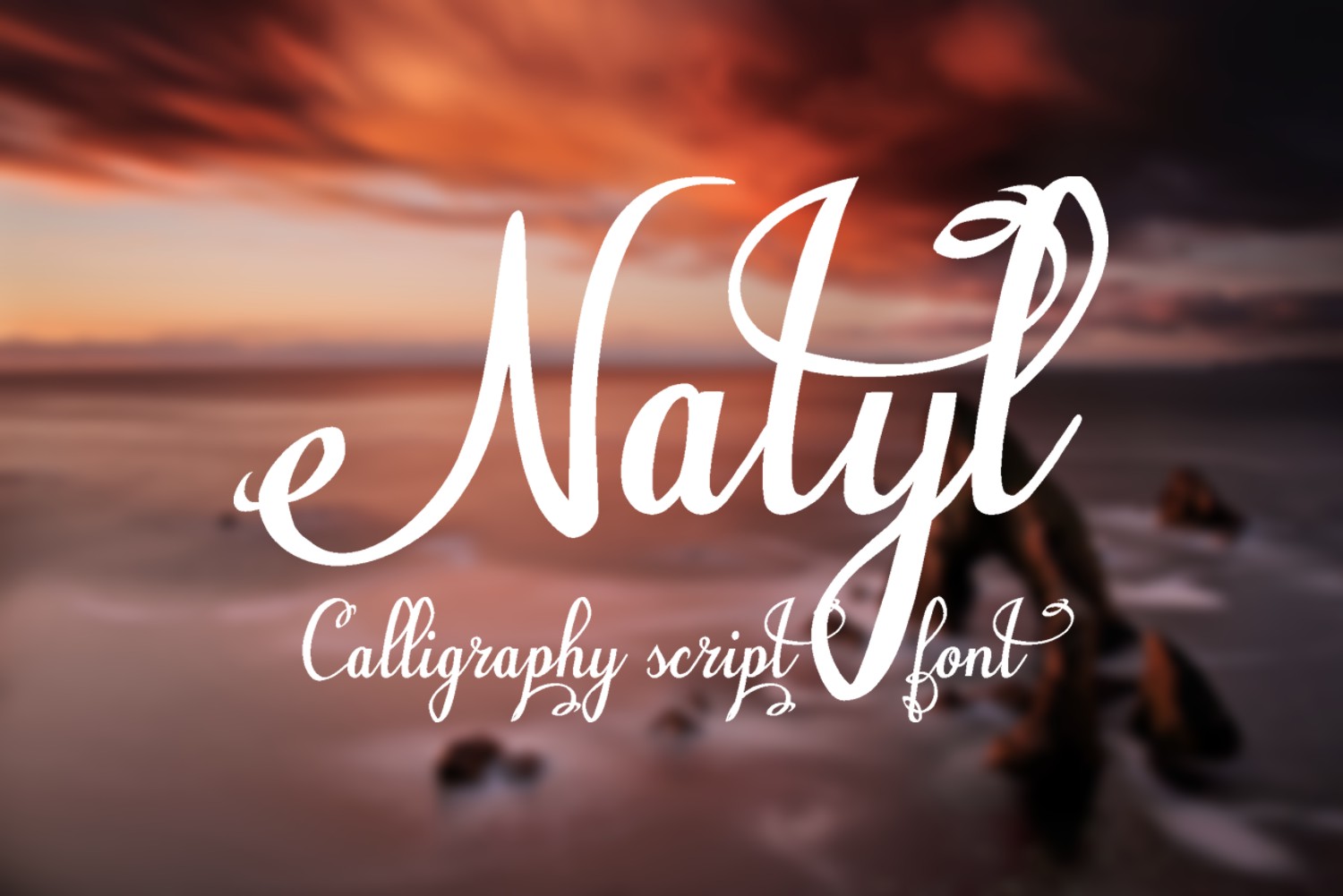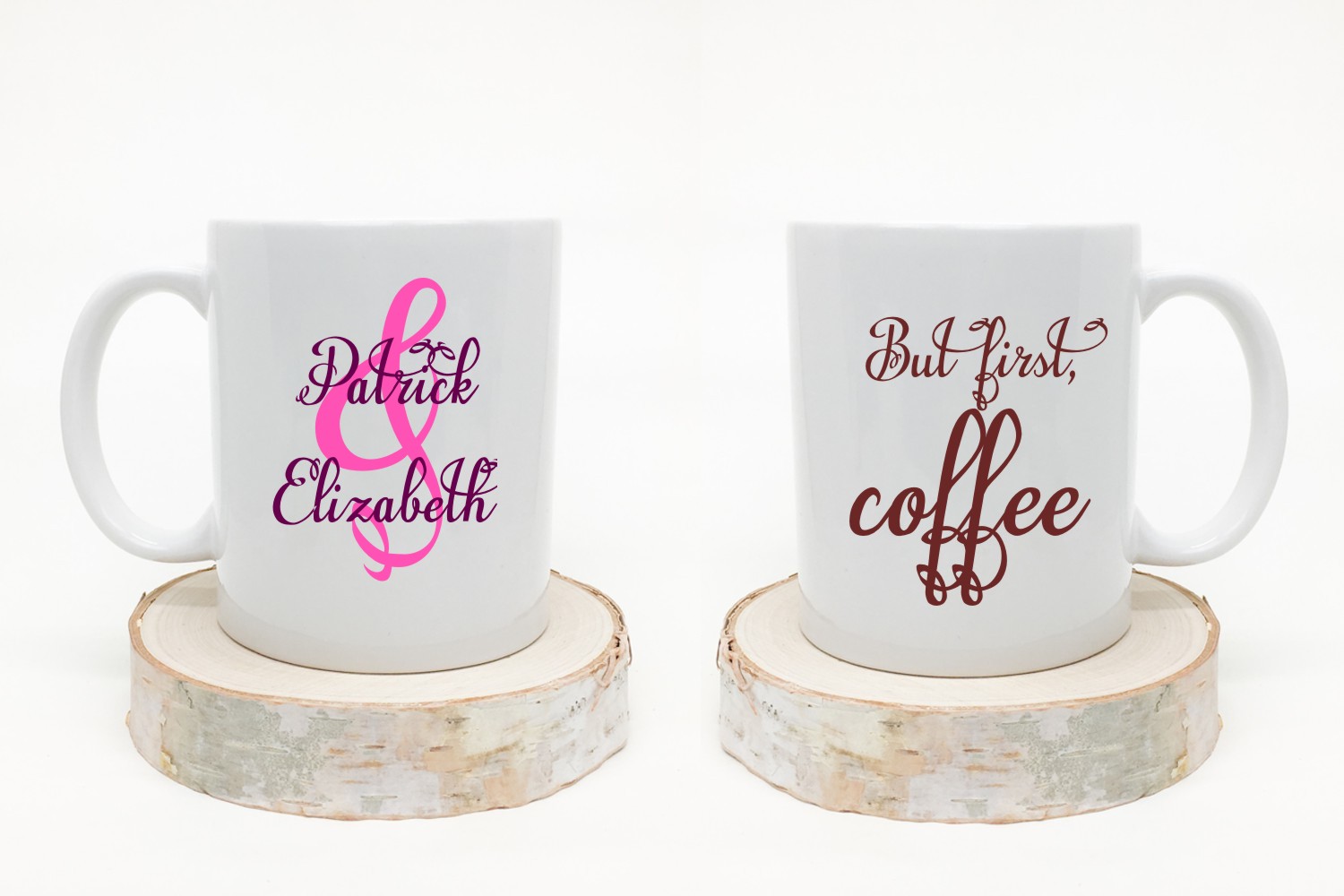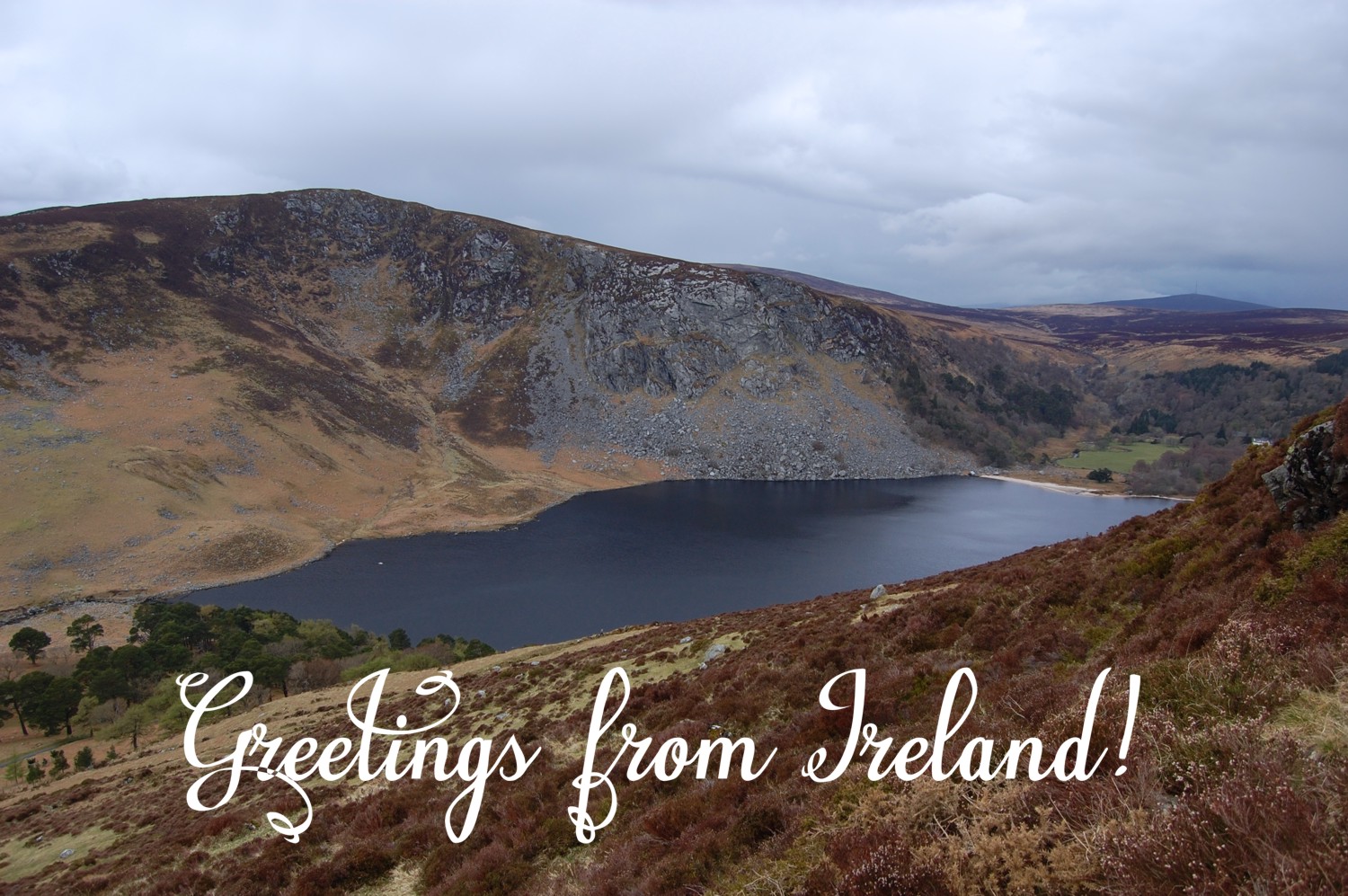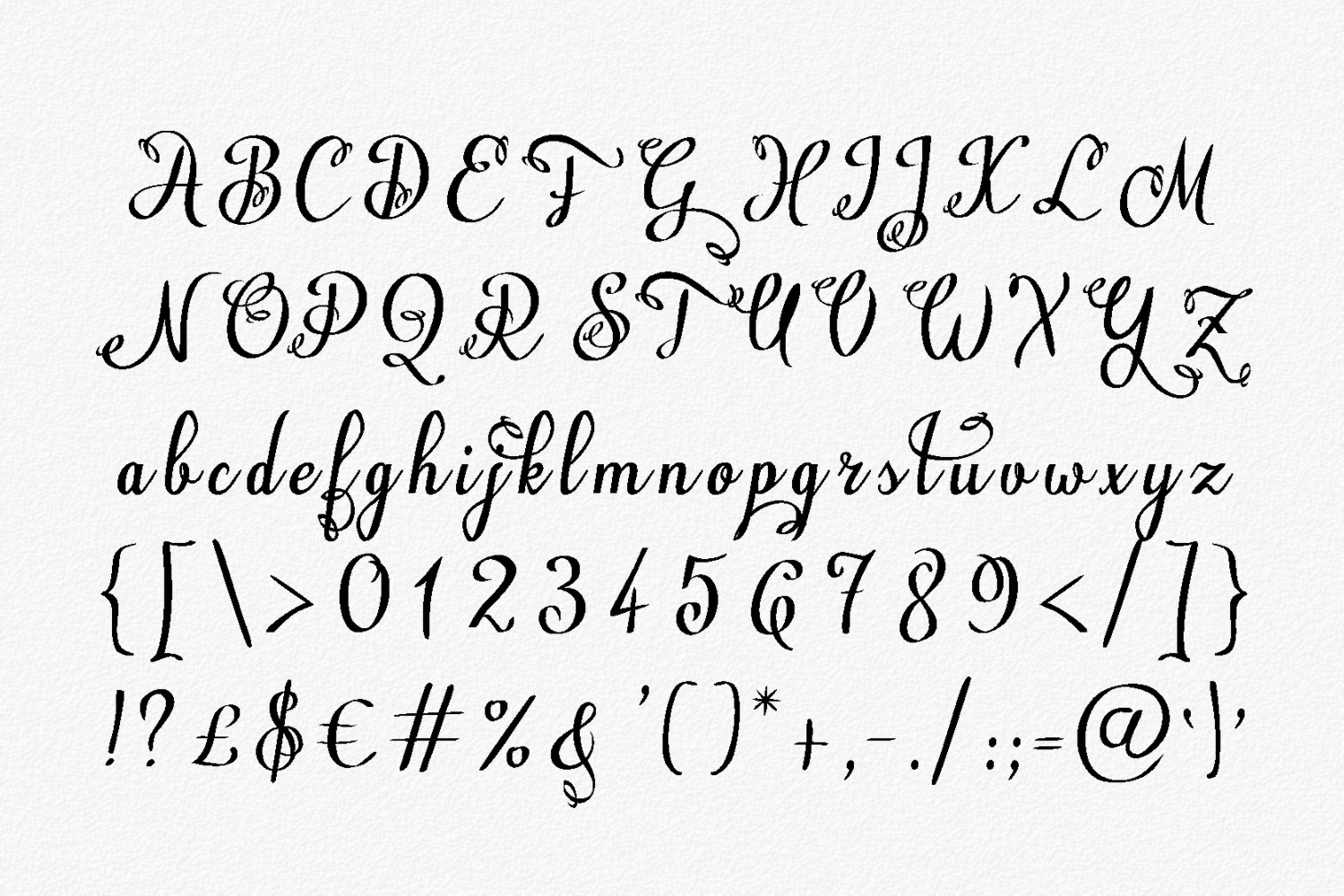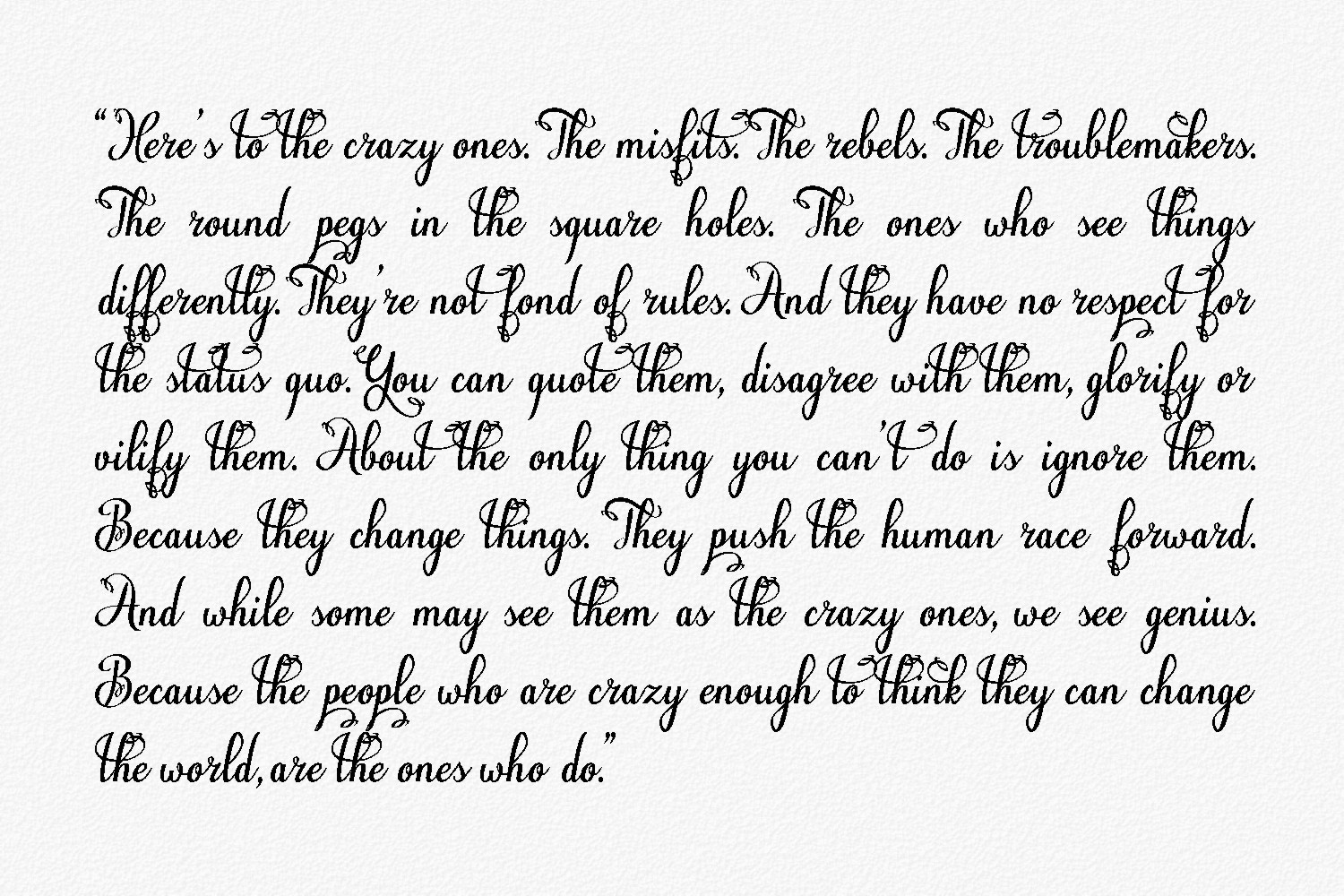
Natyl Font
About Natyl Font
Natyl is a wonderfully playful calligraphy typeface. This cursive styled font is perfect for adding some refinement and elegance to your designs. Natyl has playful embellishments, so you can use this font in a fun and carefree way.